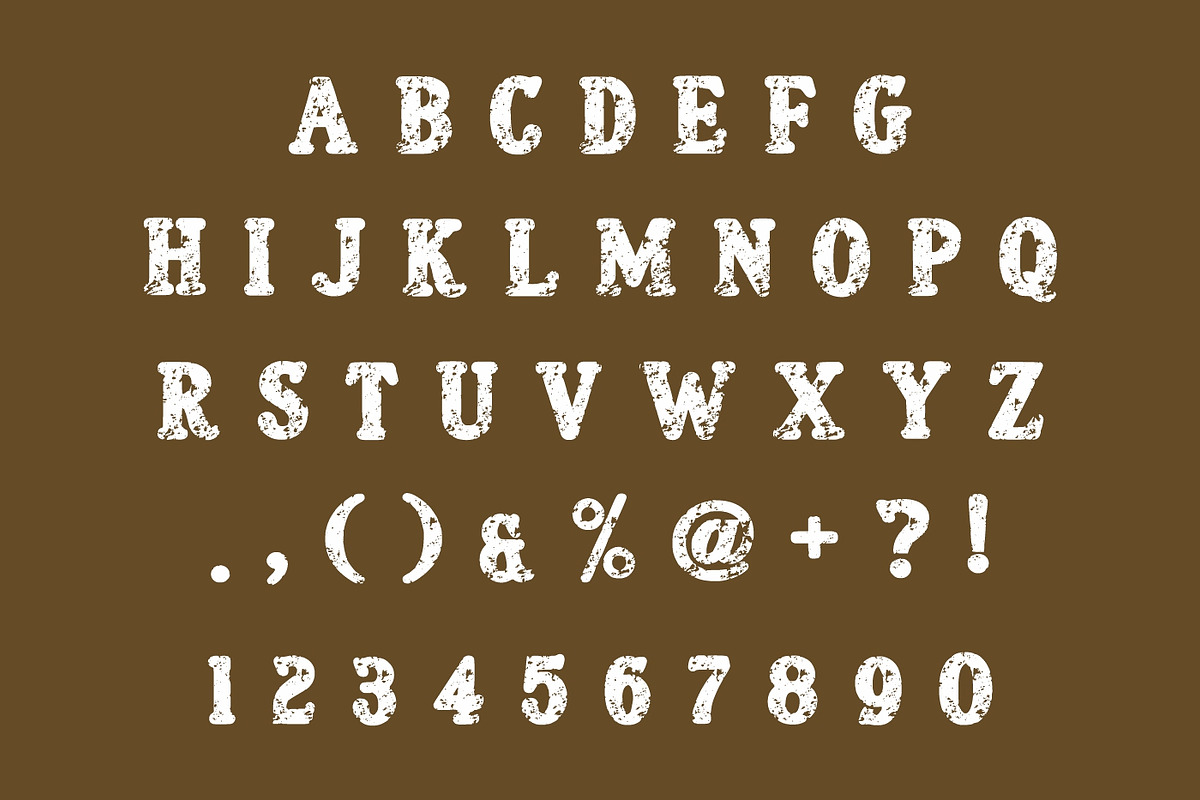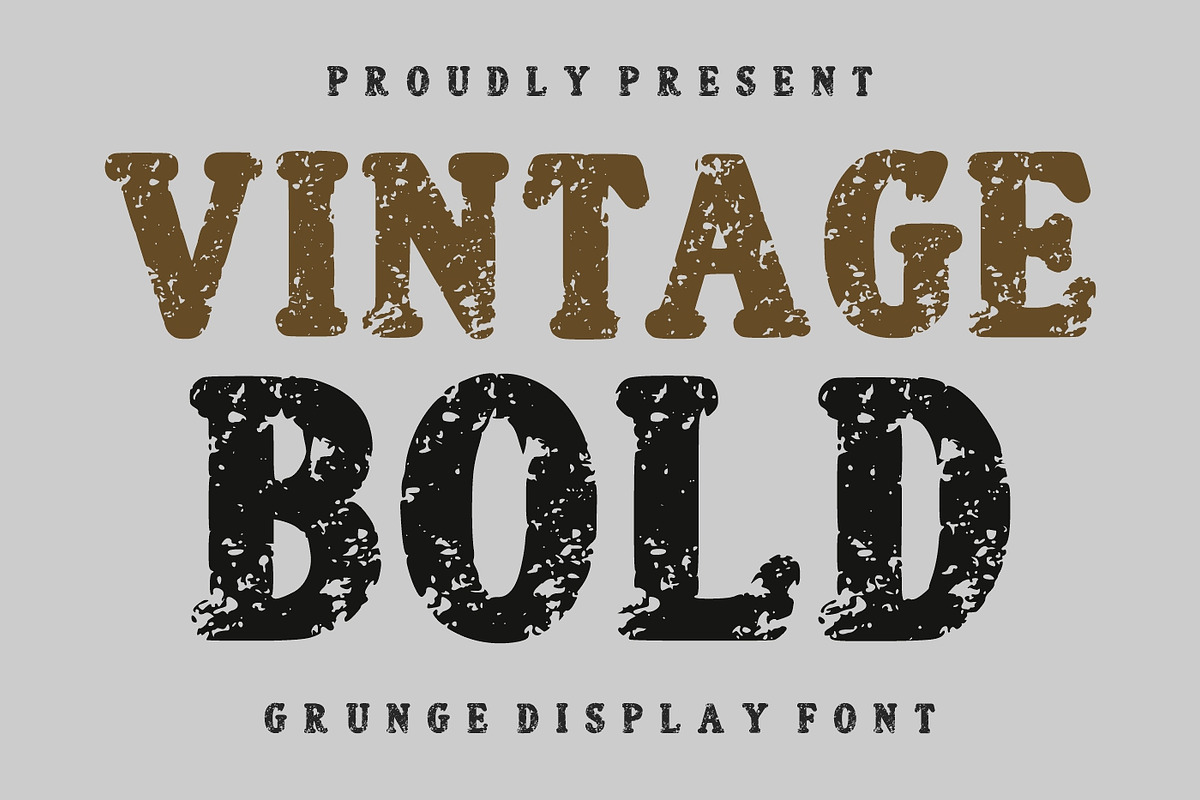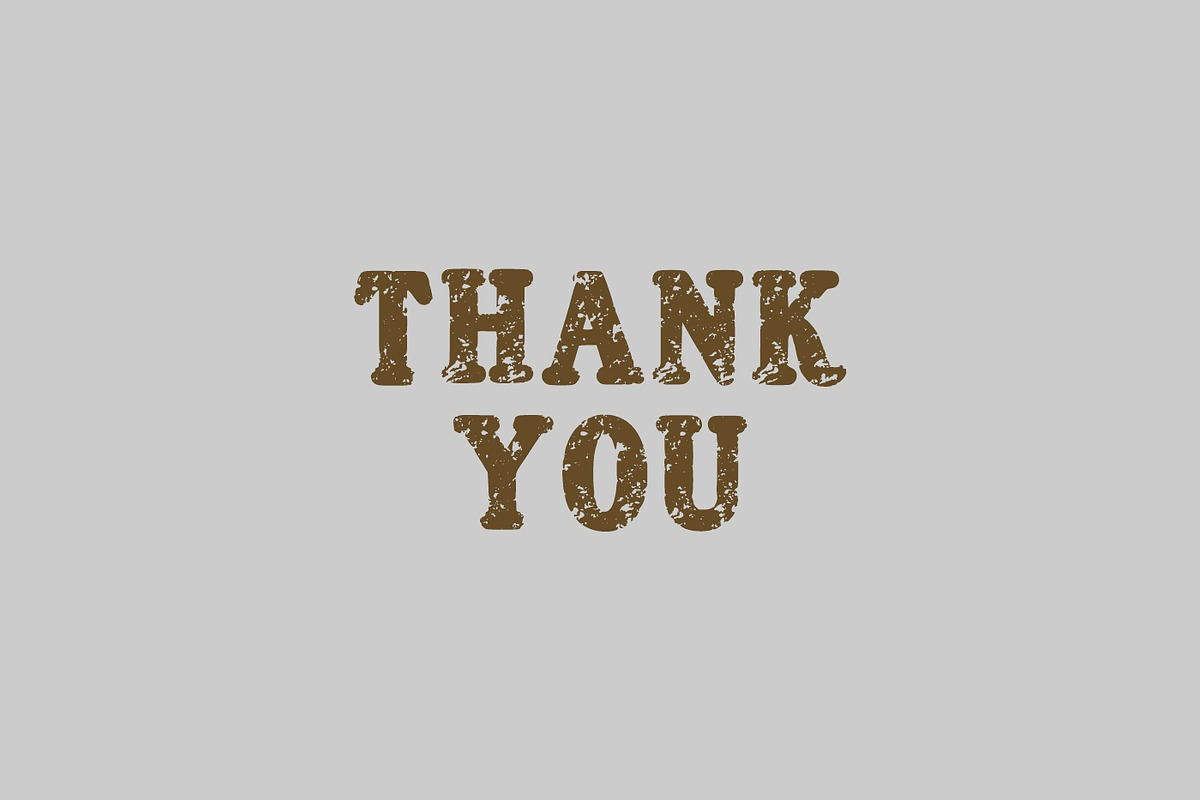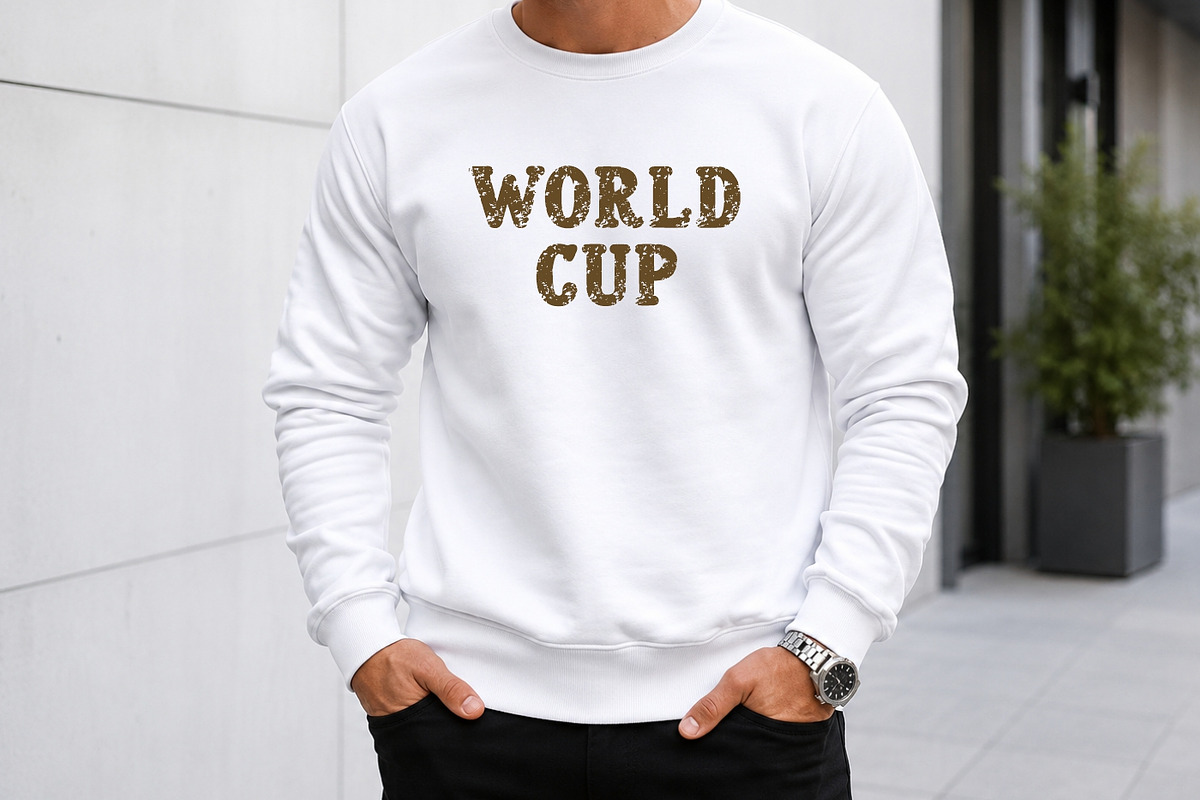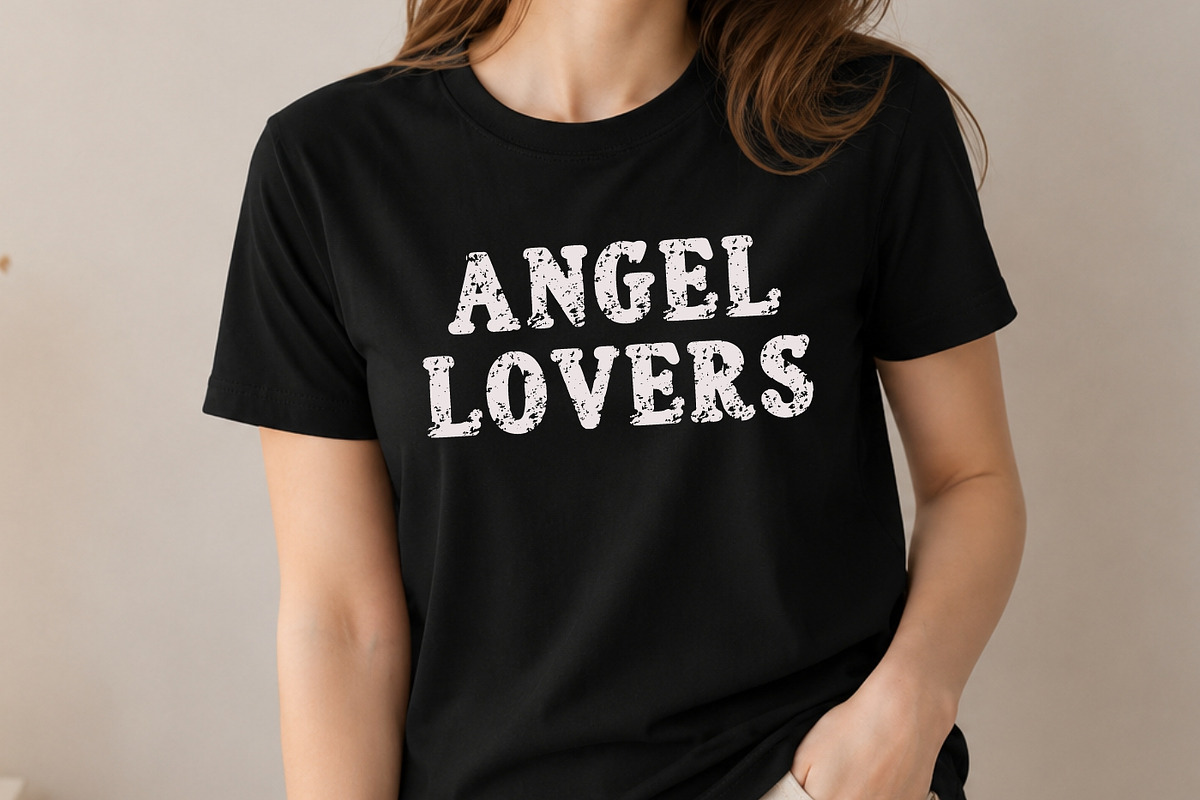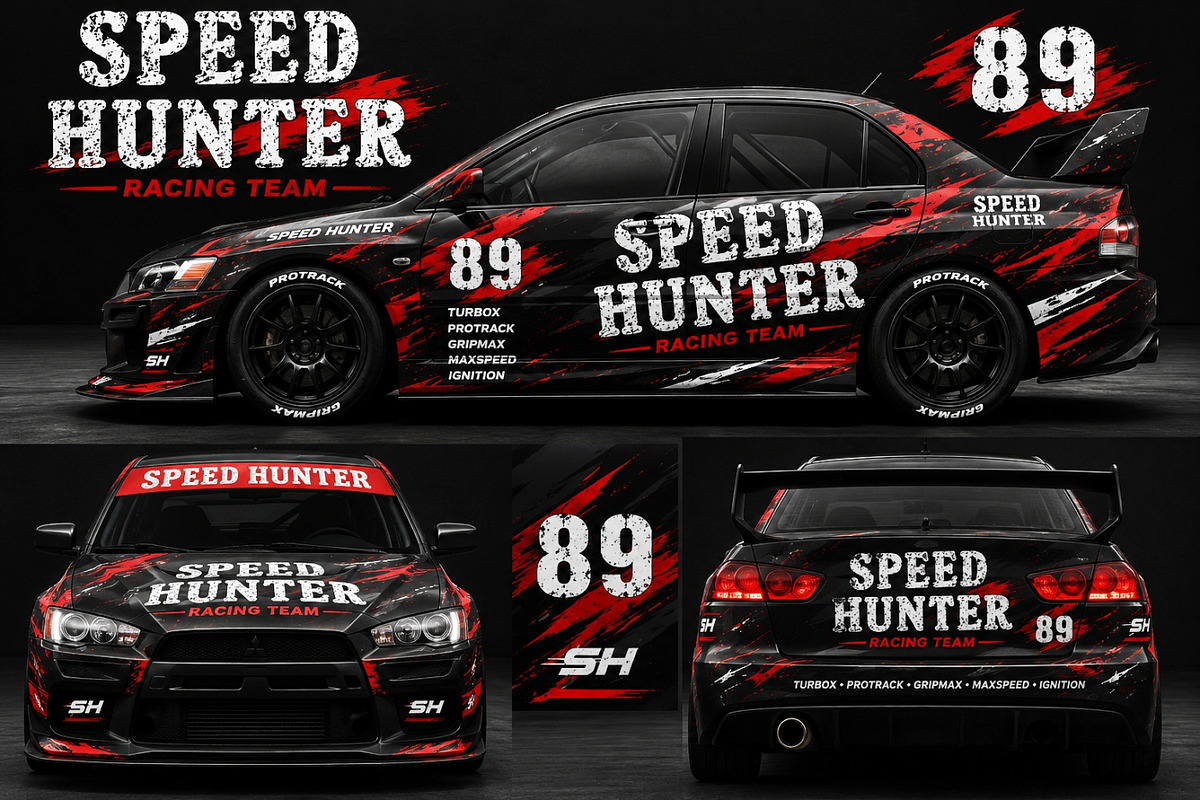
Vintage Bold
Vintage Bold is a powerful grunge display font inspired by classic western signage, aged letterpress printing, rustic branding, and distressed vintage typography. Designed with bold character shapes and authentic weathered textures, this font delivers a strong handcrafted appearance that instantly adds personality, grit, and timeless charm to any creative project.
The rough distressed details create a naturally worn effect, making Vintage Bold perfect for designers who want to achieve an authentic retro aesthetic without sacrificing readability. Its heavy letterforms provide excellent visibility in large headlines, logos, posters, packaging, merchandise, apparel designs, branding projects, social media graphics, and promotional materials.
Whether you’re creating vintage-inspired labels, rustic coffee packaging, brewery branding, western-themed posters, country festival graphics, outdoor adventure designs, or handcrafted product identities, Vintage Bold offers the perfect combination of strength, character, and nostalgic appeal.
This font works beautifully across both print and digital media, helping your designs stand out with a bold vintage attitude. The distressed texture brings an organic handcrafted feel that captures the spirit of old printing techniques while remaining versatile enough for modern creative applications.